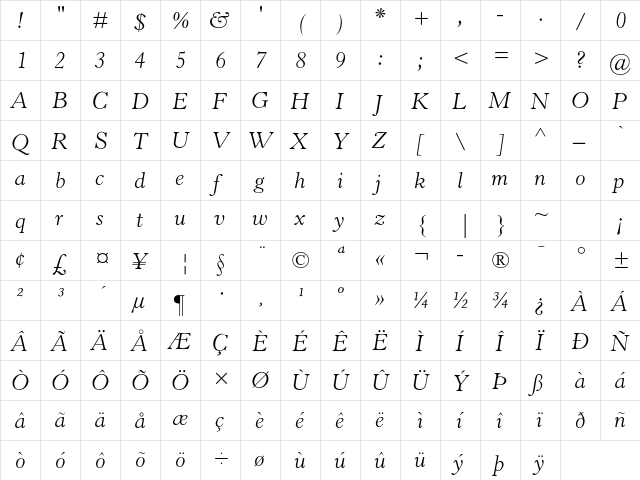
Horley Old Style MT Std Light Italic Font Preview
Design Context for Horley Old Style MT Std Typeface
Horley Old Style MT Std offers clean, dependable letterforms without strong stylistic allegiance, making it a practical choice for designers who need flexibility. The slanted form adds forward momentum and visual energy. The delicate stroke weight brings airiness and refinement to layouts.
Pro Tip: Try Horley Old Style MT Std for annotation and caption copy alongside an upright companion — the contrast in angle creates a dynamic but ordered typographic system.